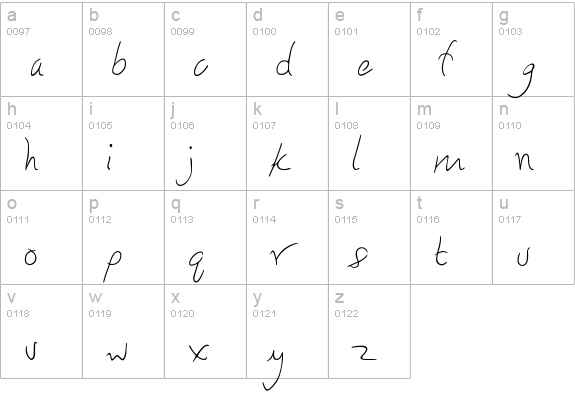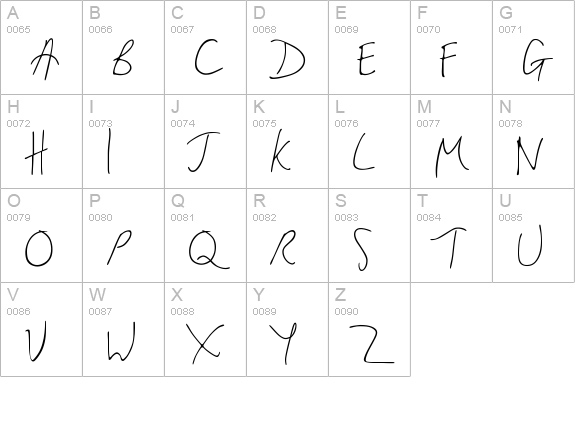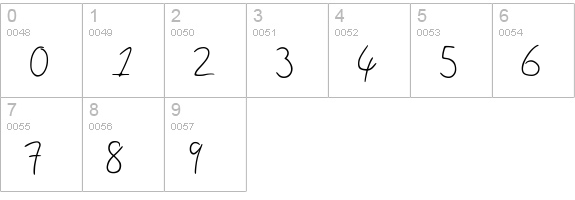
Honey I Stole Your Jumper font is a whimsical and charming typeface that exudes a playful and friendly vibe. With its hand-drawn aesthetic and unique design, this font is perfect for adding a touch of creativity to various projects such as greeting cards, invitations, posters, and more. The irregular strokes and quirky details give it a fun and casual appearance that will surely capture the attention of your audience. Best of all, Honey I Stole Your Jumper font is available for free download at FontsMarket.com! Simply visit the website to get your hands on this delightful typeface and start incorporating it into your designs today. Whether you're working on a personal project or a professional assignment, this font is sure to bring a touch of warmth and character to your work. Don't miss out on the opportunity to add this charming font to your collection!